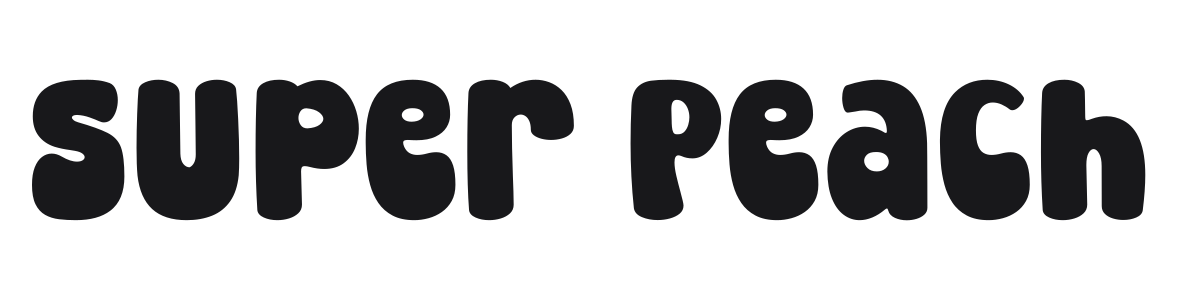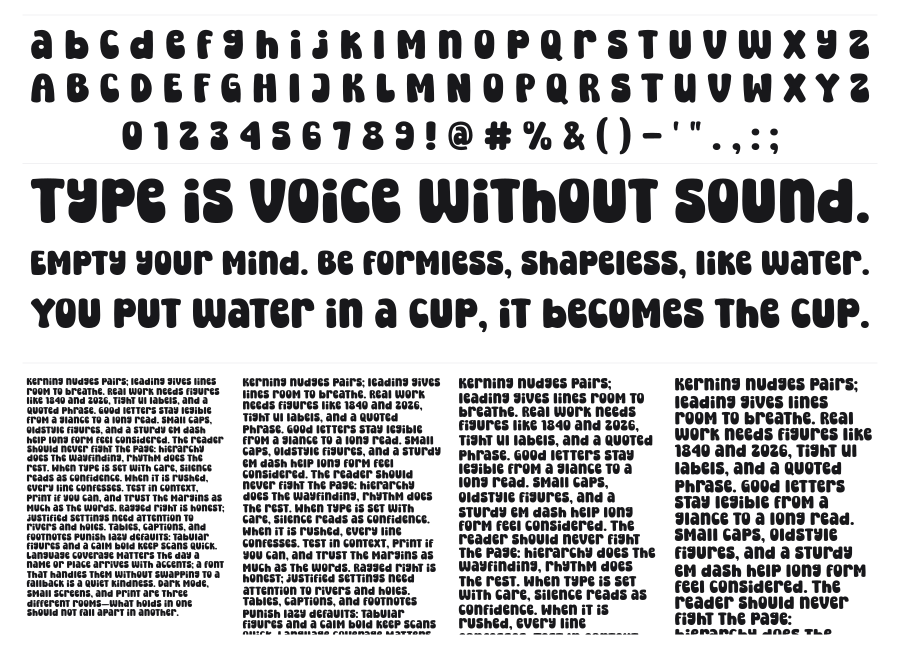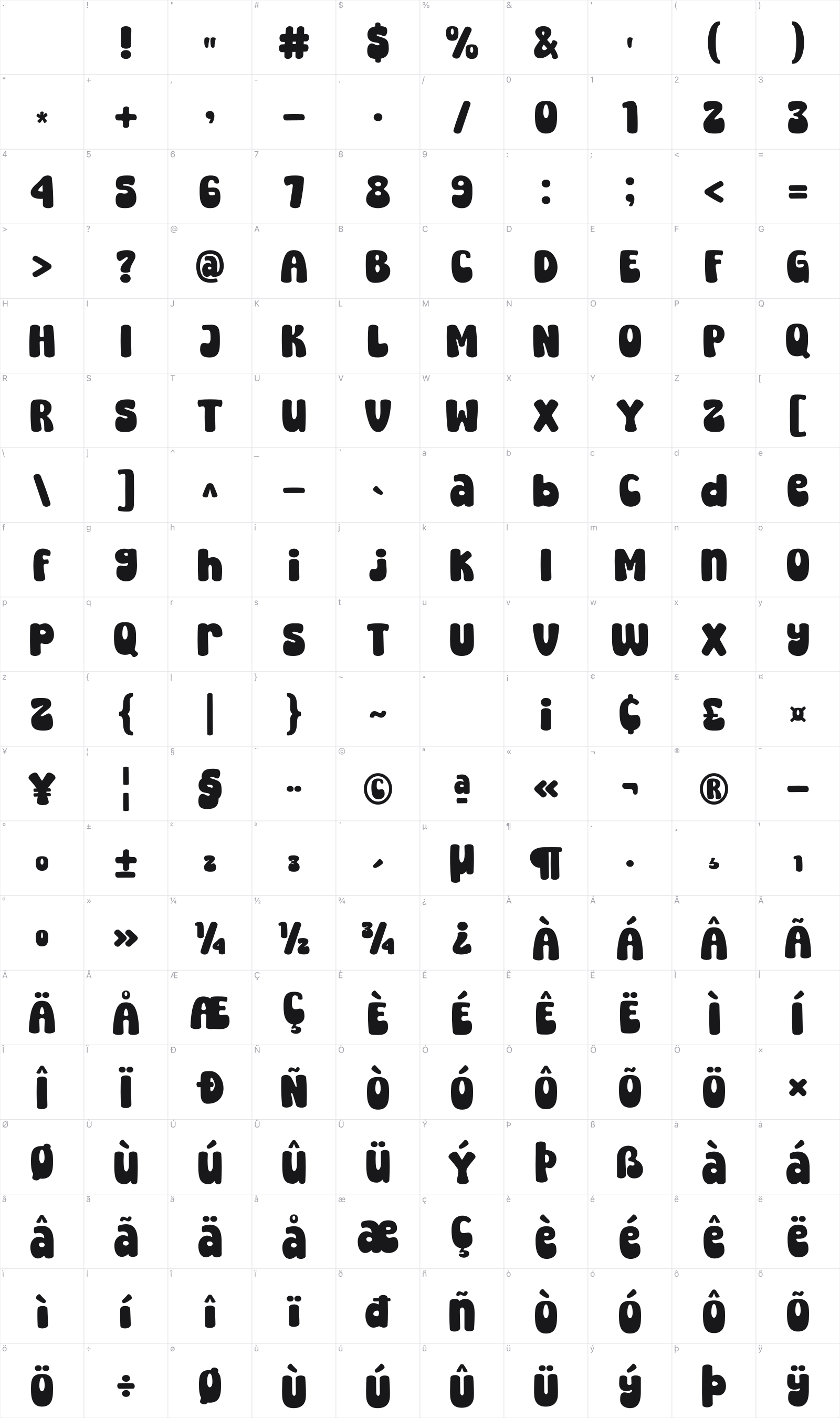
Super Peach
Super Peach is a heavy bubble-rounded display font with fully inflated terminals and almost no stroke contrast. Every letter looks like it was drawn with a thick marker and then puffed up with air, making it hard to miss at any size. It has an unmistakable 1970s groovy energy that works well for kids' brands, food packaging, and anything that needs to feel fun.